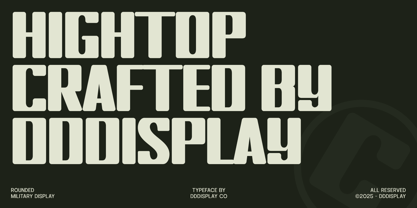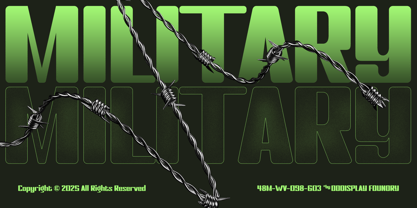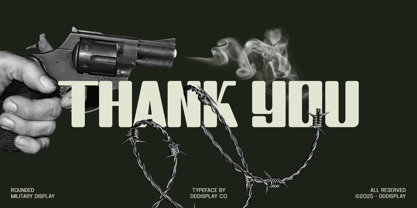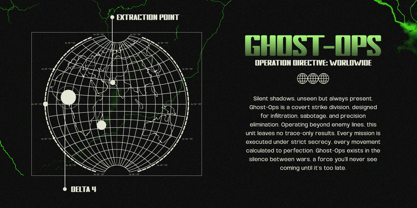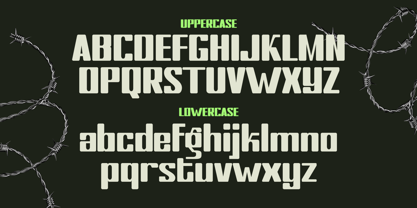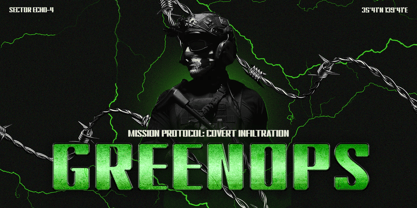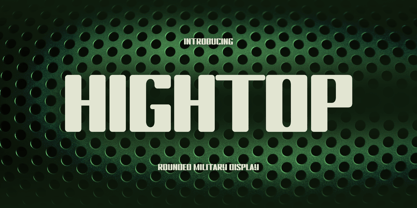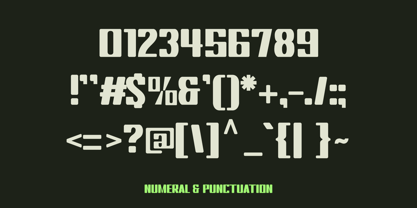
Hightop
by Sixtype Foundry
The Hightop Font Family was designed by and published by Sixtype Foundry. Hightop contains 1 styles. More about this family
Rounded Military Display Font Hightop is a unique rounded military display typeface inspired by tactical typography, industrial forms, and robust structural shapes. Featuring bold strokes and softened corners, Hightop strikes a balance between toughness and clarity, resulting in a powerful yet approachable aesthetic. The letterforms are compact, solid, and highly legible, providing a commanding presence while maintaining a modern look. Hightop excels in both uppercase and lowercase, ensuring consistency across bold headlines and impactful designs. This typeface is ideal for projects that aim to convey strength, discipline, and confidence, all while incorporating a contemporary edge.